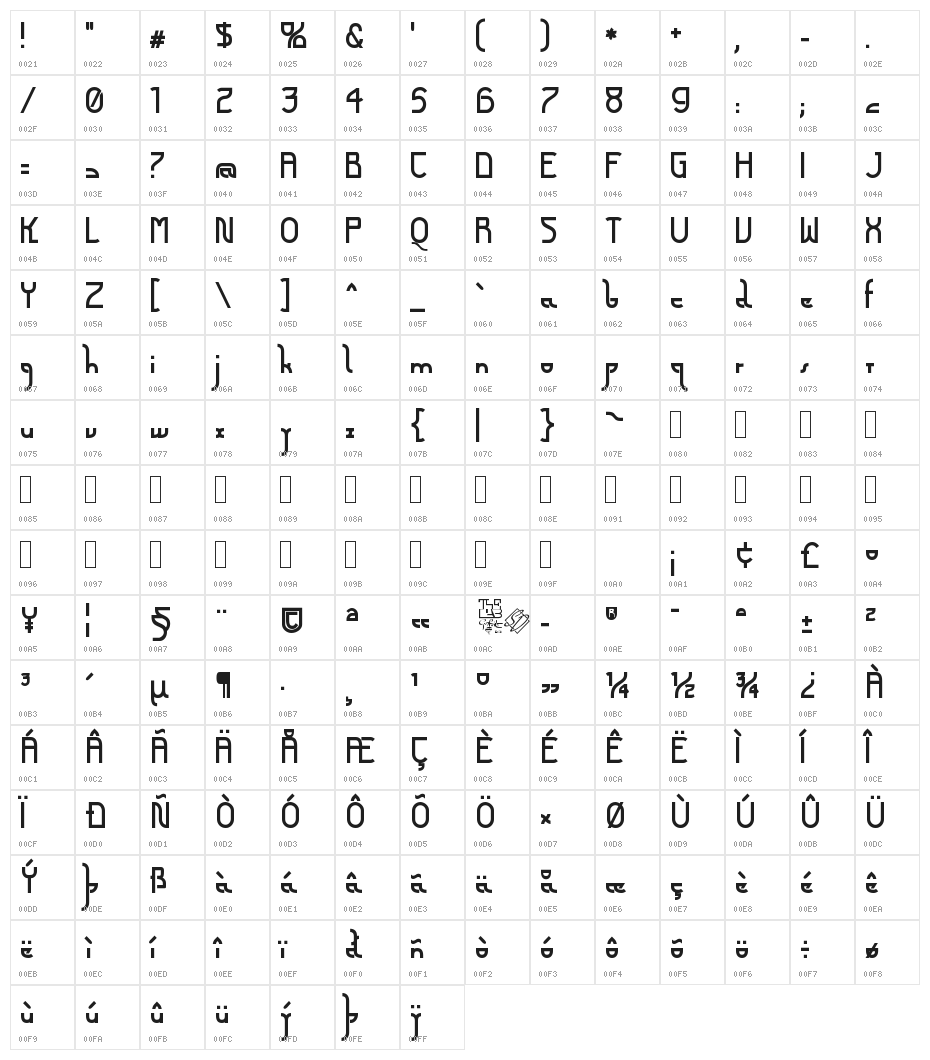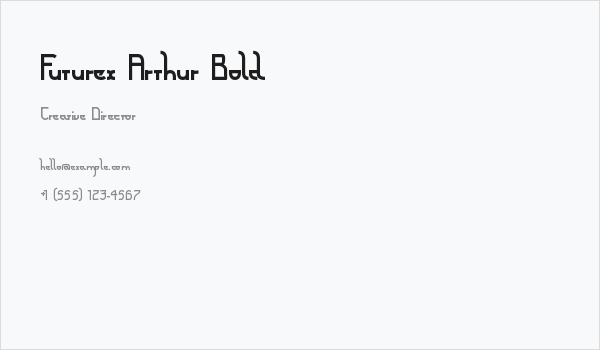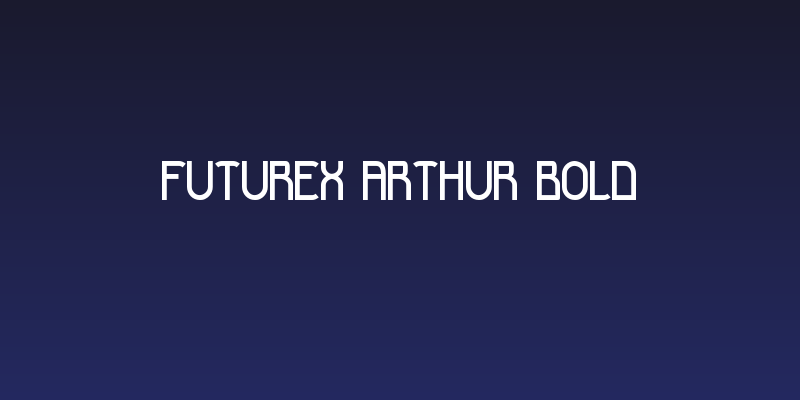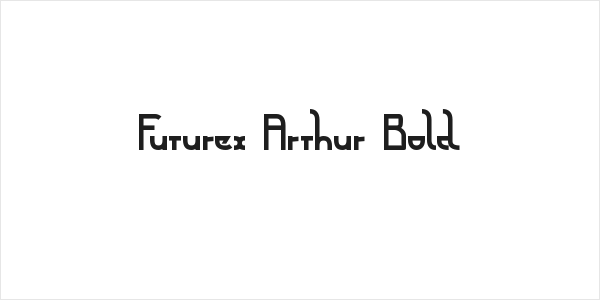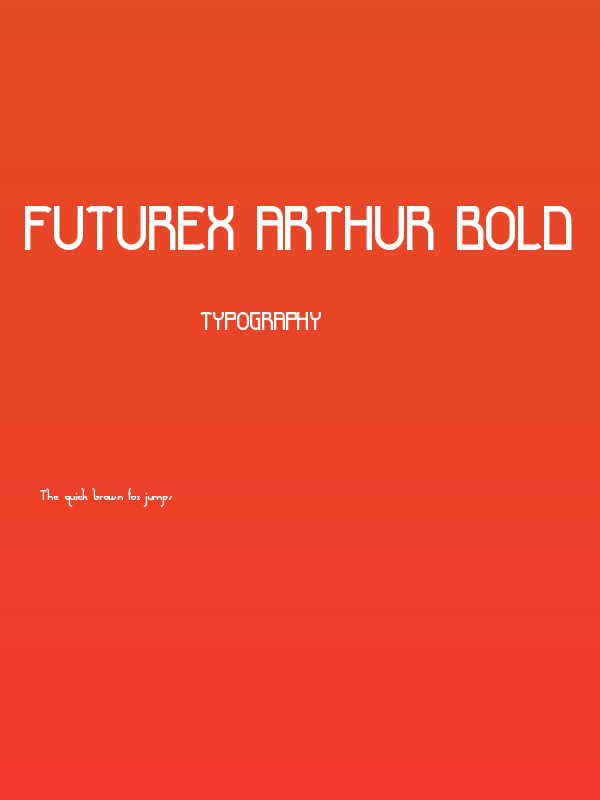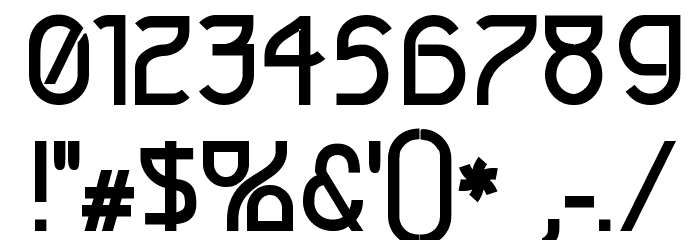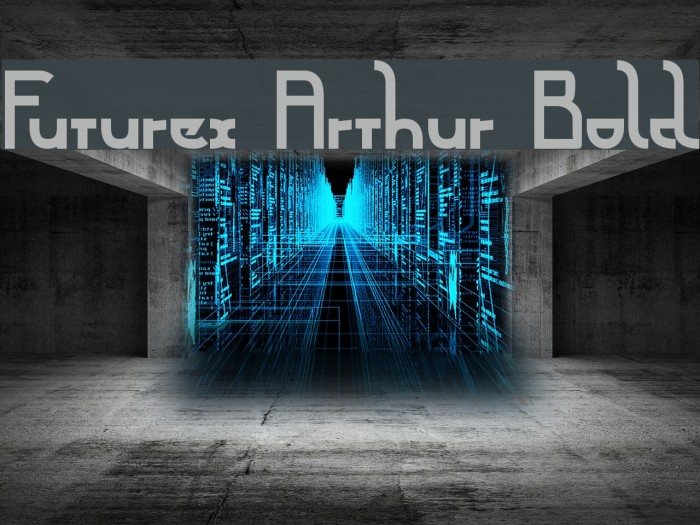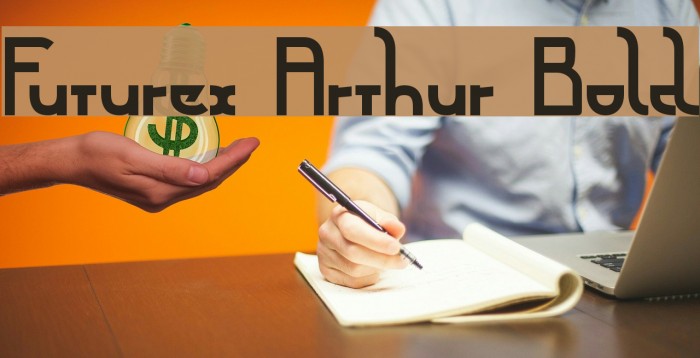
Futurex Arthur Bold Font
Futurex Arthur Bold Description
This font features a bold and geometric design with a futuristic flair. The uppercase letters are characterized by their angular shapes and consistent stroke width, giving them a strong and assertive presence. The lowercase letters maintain the geometric theme, with some unique curves and angles that add a touch of modernity. Numbers are clear and distinct, following the same bold style. Special characters are designed to match the overall aesthetic, ensuring a cohesive look across all glyphs. The font's structure is clean and precise, making it suitable for various design applications where a modern and bold statement is desired.
| Proposed Projects | Ideal for technology branding, sci-fi posters, video game titles, and modern logo designs. |